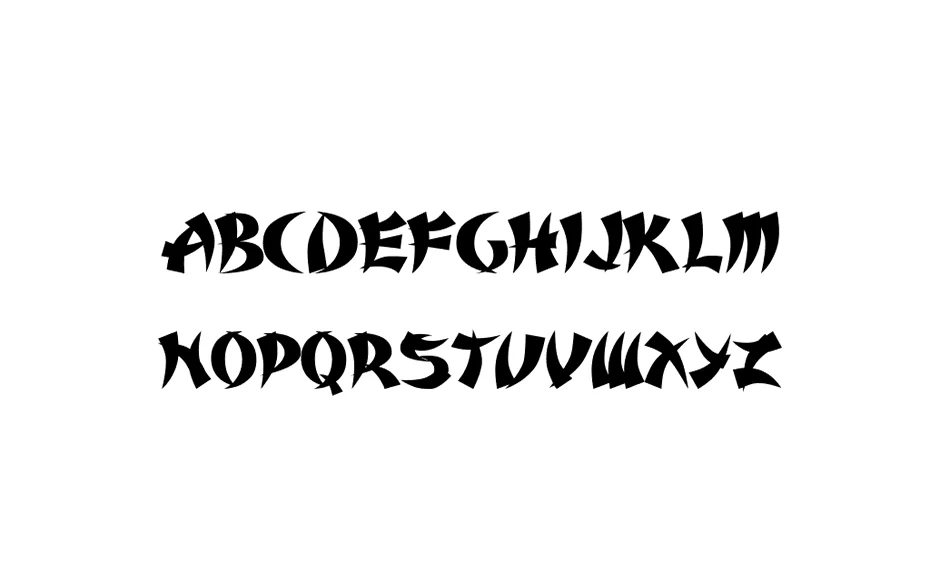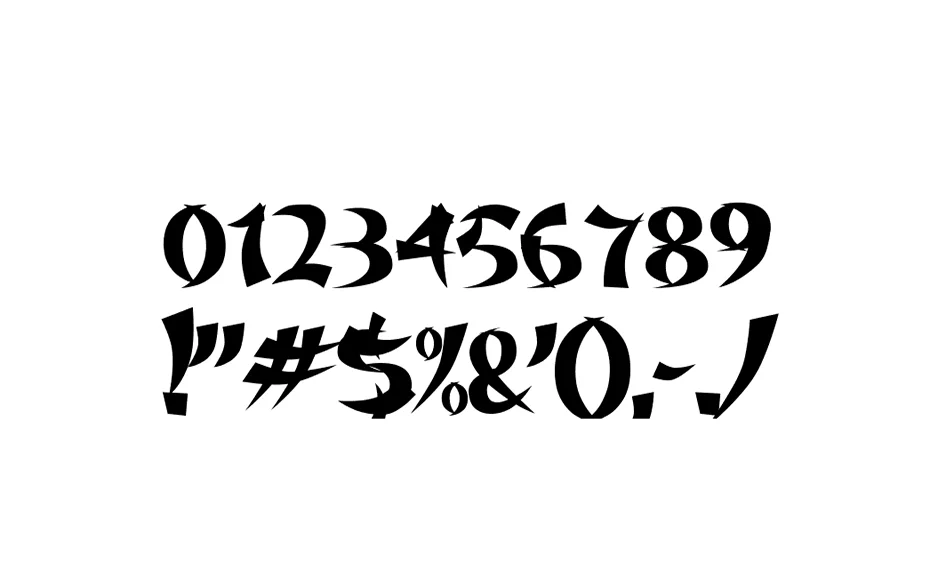
Karate Font is a Chinese, Jpn design concept, and it provides excellent creative features. That has very clean, sharp, and disciplined fonts that reflect the handwritten style in a foreign look.
This typeface was created and shared by Gary D. Jessey. Which are Jenkins, a KY-based designer of Art Brush and Karate.
It is designed in a unique way in which you will see that the designer has used slim to bold strokes with sharp corners. And the characters are randomly created.
Its structure is made with slim to bold strokes which the designer has maintained cleanliness. All letters have different sizes and shapes so they do not match each other.
You can guess what this font looks like by looking at the existing picture.
This font is a perfect choice for eye catchy banners, posters, ads, logos, and other vital designs for any restaurant or game’s branding purposes, this typeface can be a brilliant choice.